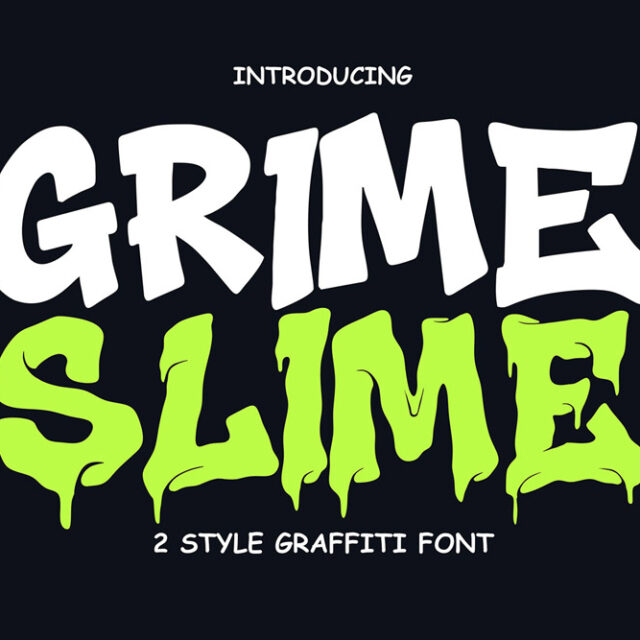
About Grime Slime
As a melted font with graffiti influence, Grime Slime is perfect for projects that demand attention. Its thick uppercase letterforms feel heavy, dangerous, and alive, making every word look like it’s melting off the surface. This font is not polite, minimal, or quiet — it is loud, gritty, and unapologetically street.
Melted Graffiti Font with Dual Personality
What makes Grime Slime melted font truly special is its dual-style system. You get both a Clean version and a Melted version, allowing you to switch between controlled boldness and full toxic chaos.
The Clean style delivers strong graffiti-inspired letterforms with sharp edges and solid structure. It’s perfect for logos, headlines, and branding where clarity still matters.
The Melted style pushes the design into a dripping, oozing, slime-covered look — ideal for posters, horror visuals, music artwork, and underground streetwear graphics.
Together, these two styles make Grime Slime a highly versatile melted graffiti font suitable for a wide range of urban design needs.
Uppercase Characters with Full Language Support
Designed for bold impact, Grime Slime features uppercase characters only, ensuring visual consistency and strong presence across all layouts. Each character is carefully shaped to maintain balance even in the most chaotic melted forms.
This makes Grime Slime not just an experimental display font, but a fully usable melted graffiti font for commercial and branding projects.
Toxic Melted Font for Streetwear & Urban Branding
Typography is a weapon in street culture, and Grime Slime melted graffiti font is built to dominate. Its slimy textures and dripping forms feel dangerous, rebellious, and modern — exactly what streetwear and underground brands crave.
Whether you’re designing for a clothing drop, an event poster, or a digital campaign, Grime Slime delivers raw street energy with unmistakable attitude.
Melted graffiti font with toxic slime style
-
Two styles included: Clean & Melted
-
Uppercase characters for bold impact
Heavy, bold letterforms with strong presence
-
Perfect for streetwear, posters, music, and urban design
Easy to layer and combine styles
Why Designers Love Grime Slime
Designers love Grime Slime – Melted Graffiti Font because it gives them freedom. Freedom to go clean, freedom to go wild, and freedom to push their visuals into darker, bolder territory.
Here’s why Grime Slime stands out:
-
Unique slime and melted letterforms
-
Two styles for flexible design control
-
Strong readability even in melted form
-
Instantly recognizable urban personality
-
Perfect balance between chaos and structure
Grime Slime allows designers to create designs that feel alive — like the text is melting, dripping, and moving on its own.
The Power of Melted Typography
Melted fonts are becoming a major trend in urban and experimental design because they add emotion, texture, and movement to typography. Grime Slime taps directly into this trend by combining graffiti aesthetics with slime-like melting effects.
The result is a font that feels organic and aggressive at the same time. Its melted shapes suggest decay, rebellion, and underground culture — making it ideal for projects that reject clean, corporate visuals in favor of raw expression.
Used alone or layered with other graffiti fonts, Grime Slime melted font creates a strong visual identity that instantly separates your work from the ordinary.
Grime Slime – Melted Graffiti Font is not just typography — it’s a visual attitude. With its clean and melted styles, uppercase characters, multilingual support, numbers and punctuation, and professional file formats, this font gives designers the tools to create loud, toxic, and unforgettable visuals.
If you are looking for a melted graffiti font that feels bold, dangerous, and unapologetically urban, Grime Slime is your weapon of choice. Let your letters melt, drip, and slime their way into the spotlight.
Grime Slime doesn’t behave — it contaminates the design space.